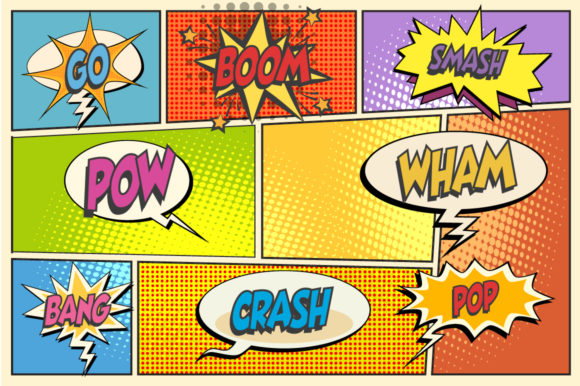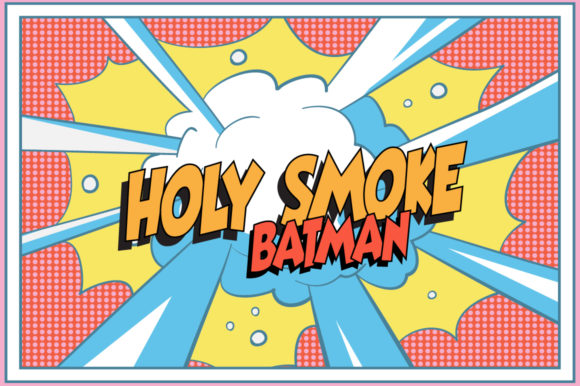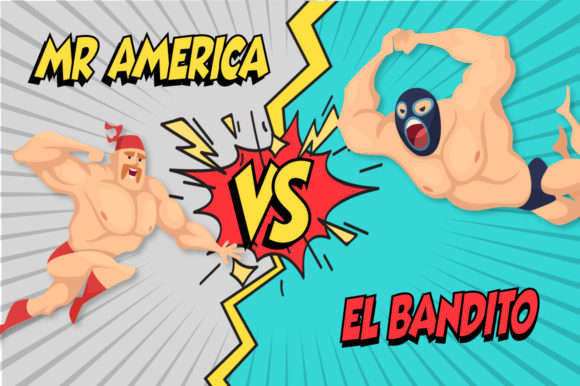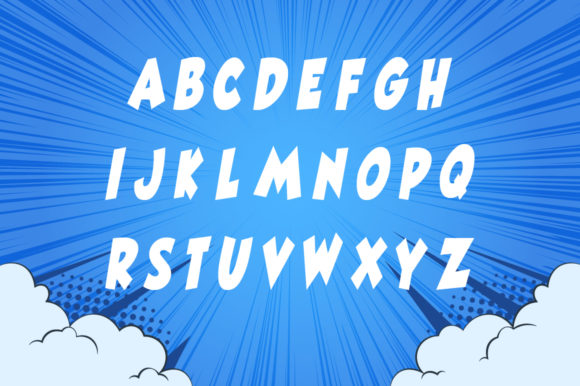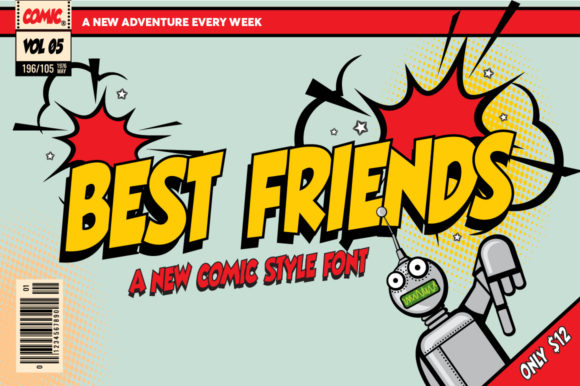
The Ultimate Best Friends Font Guide: Adding Playfulness to Your Designs
I’ll never forget the time I was working on a fun project for a children’s party invitation. I had the perfect concept in mind, but I just couldn’t find the right font to match the playful vibe. That’s when I stumbled upon the Best Friends font, and it instantly became the star of the show! 🐰 In this article, I’ll share my love for this comic-style display font, its features, and how to make the most of it in your designs.
An Honest Review of Best Friends Font
What I Love About Best Friends Font ✨
• Playful and twisty design that’s perfect for creative projects ✅
• Wide range of OpenType features, glyphs, and stylistic alternates to experiment with 📚
• Easy to read and understand, even in larger sizes 🔍
• Instantly brings a fun and youthful vibe to any design 🎉
• May not be suitable for very formal or professional projects ⚠️
• Some characters may not work well in smaller font sizes 🔎
The Backstory Behind Best Friends Font
Best Friends Font was designed with one goal in mind: to create a playful, twisty font that’s perfect for creative projects. The designer aimed to craft a font that’s fun, youthful, and easy to read. With its wide range of OpenType features and glyphs, Best Friends Font is sure to become a favorite among designers, crafters, and creative hobbyists.
Q: What type of projects is Best Friends Font best suited for?
A: Best Friends Font is ideal for creative projects, such as party invitations, children’s books, posters, and social media graphics.
Q: Is Best Friends Font available in different font weights?
A: Yes, Best Friends Font comes in various font weights, allowing you to experiment with different styles and emphasis.